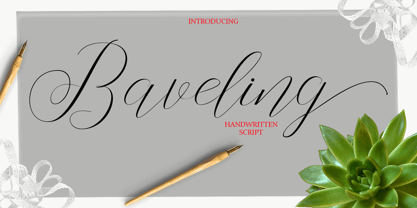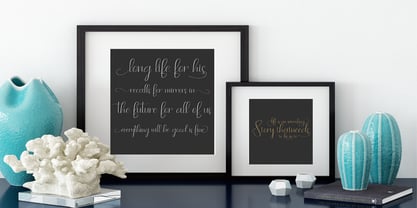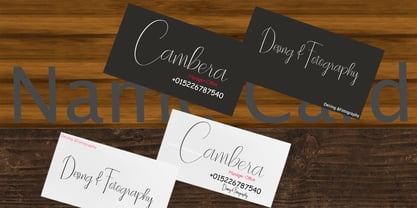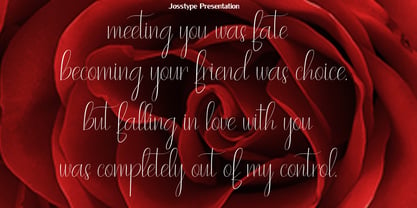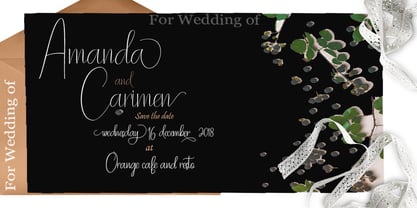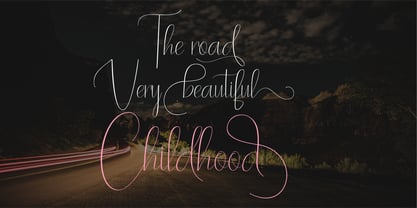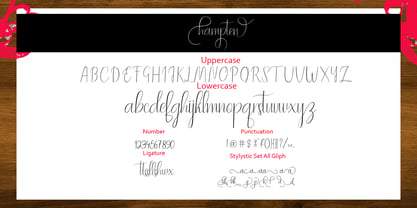
Baveling
by Josstype
The Baveling Font Family was designed by Teuku Zulfikar and published by Josstype. Baveling contains 1 styles. More about this family
Introduce Baveling Script, Hand Lettered Calligraphy Font with beautiful waves and natural flow. has a unique letter style, with natural handdrawn, and has a softer and smoother character subtly connect all the characters.
They have a simple elegant swashes in separate letters, you can use graphic design software to access the alternate letter.
Script is perfect for weddings, invitations, greeting cards, quotations, posters, branding, business cards, stationary, title design, header blog, excerpts of art, the art of typography, letter envelopes modern or design books, occurred styles such as design handdrawn, title , letter marriage, pop vintage design, or purpose to make the project / art design we look beautiful and trendy.